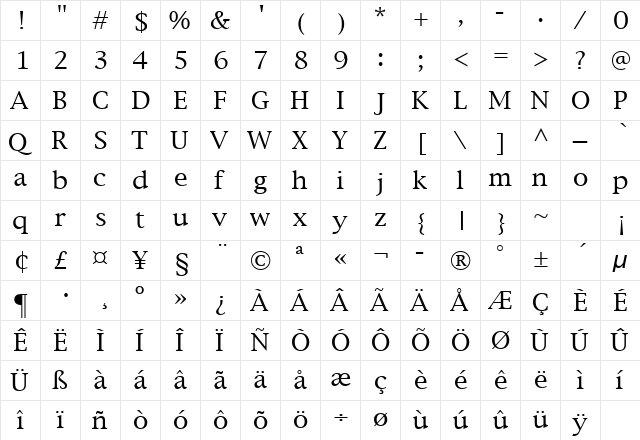
New York Regular
Design Context for New York Typeface
New York offers clean, dependable letterforms without strong stylistic allegiance, making it a practical choice for designers who need flexibility.
Pro Tip: Use New York in both headline and body roles to test its range before committing to a single application.